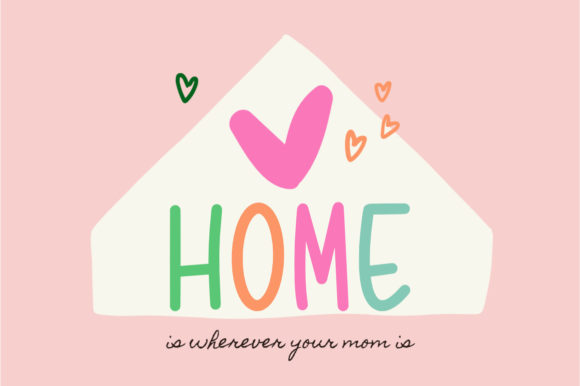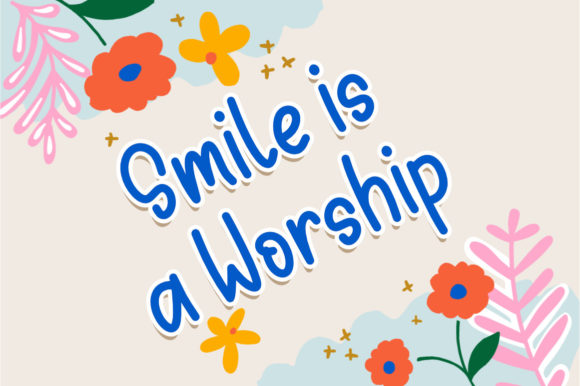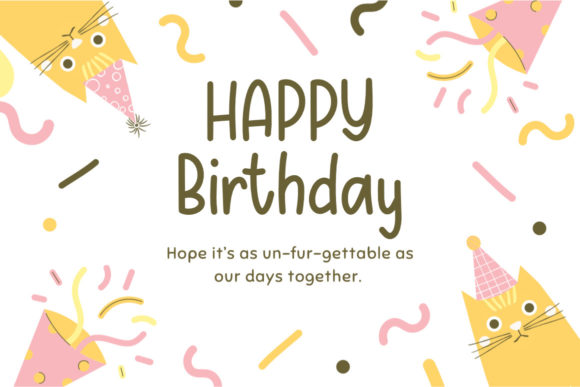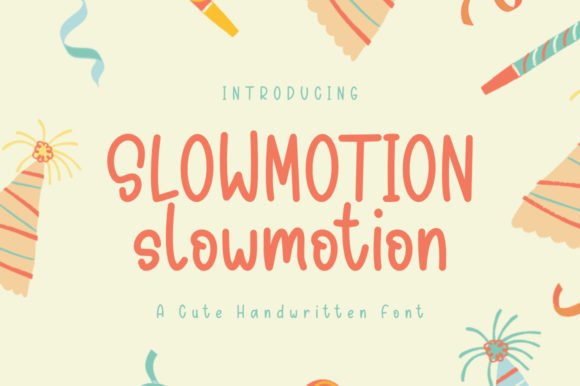
Introduction to Slowmotion Font
Slowmotion is a cute, playful and fun display font.
Whether you’re using it for crafting, digital designing, presentations or greeting cards making, it’s perfect .
Why Choose Slowmotion Font?
Slowmotion Font offers exceptional quality and versatility, making it a valuable addition to your design toolkit. Whether you’re creating for personal projects or commercial use, Slowmotion Font delivers professional results.